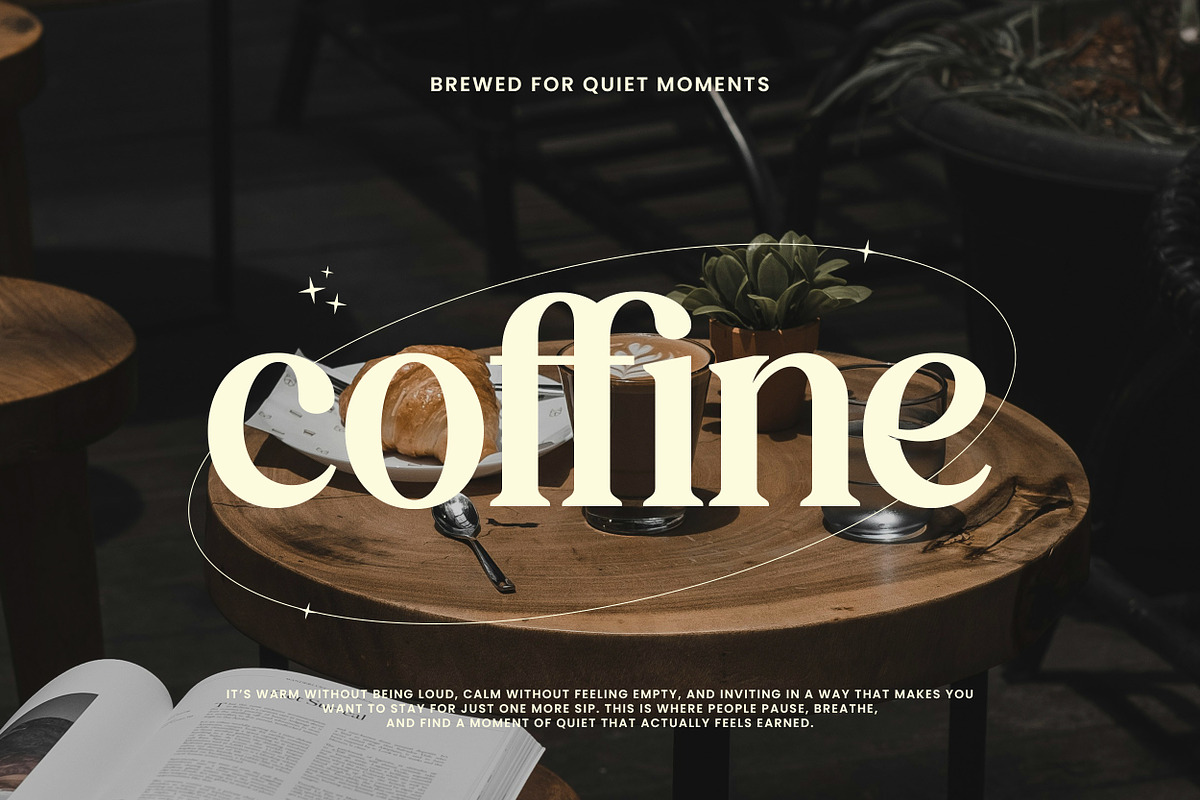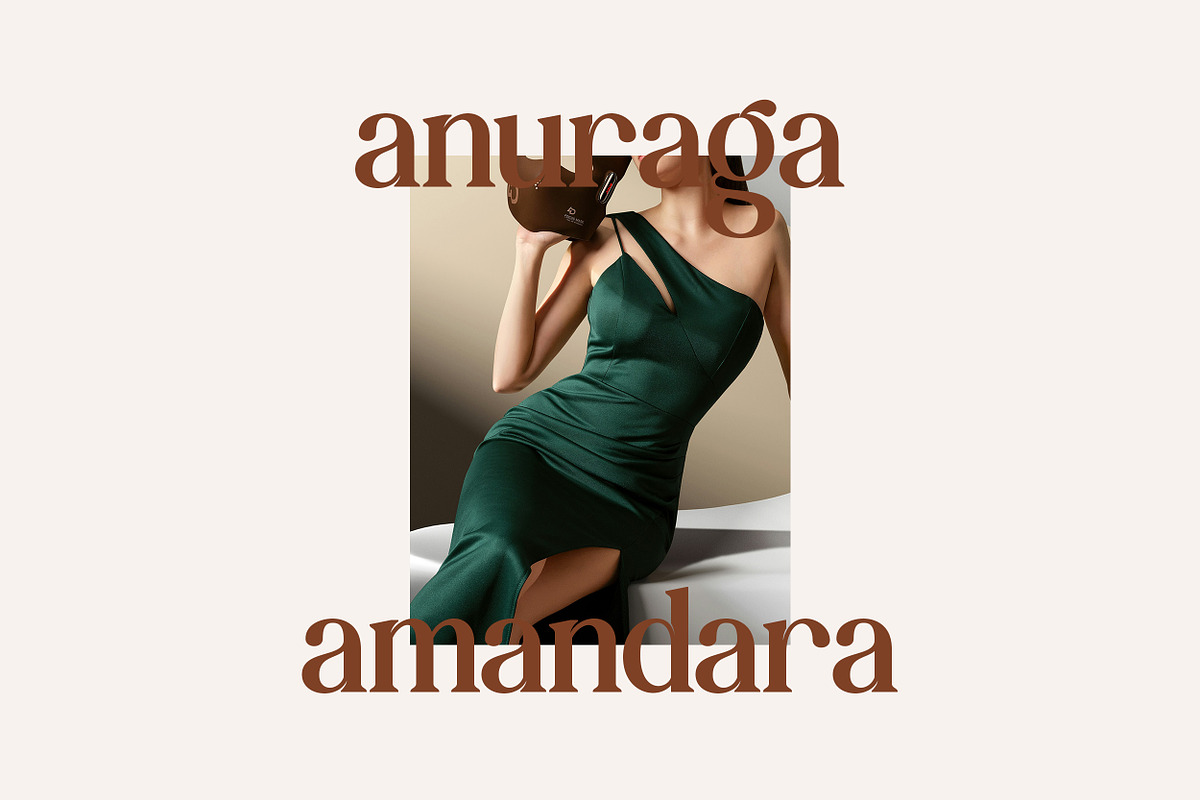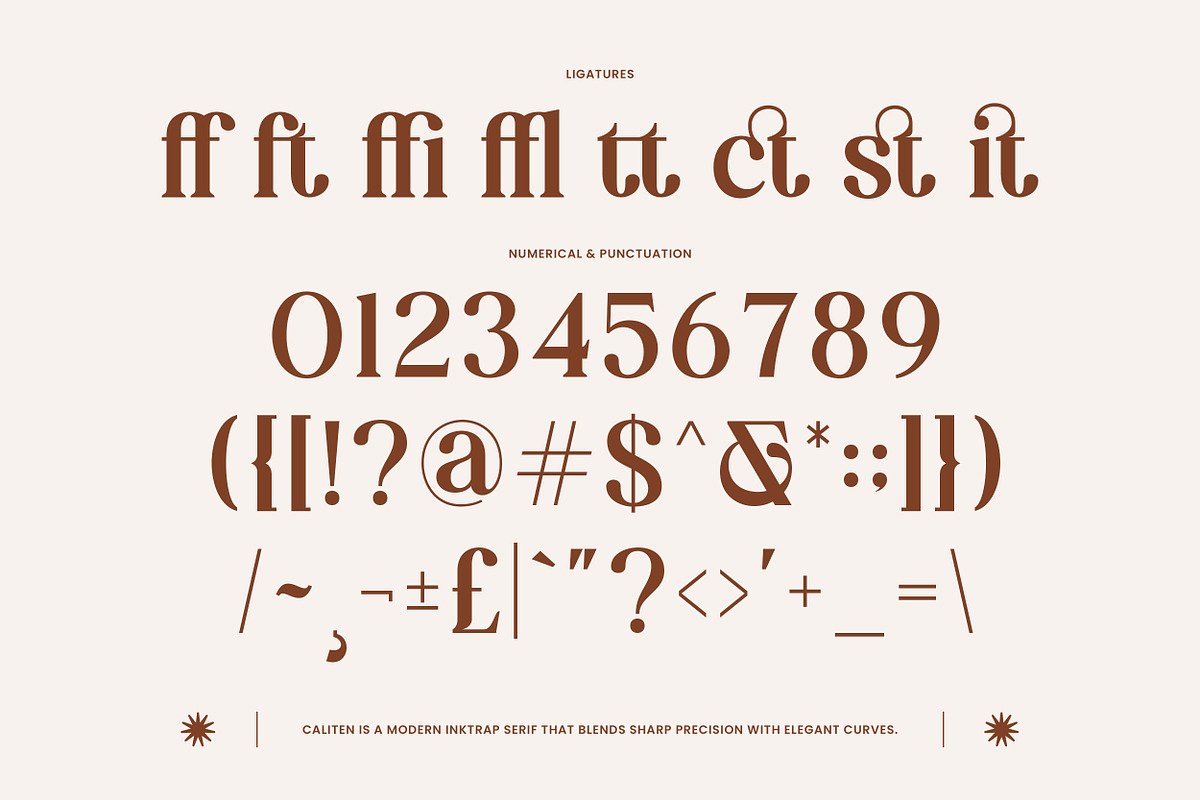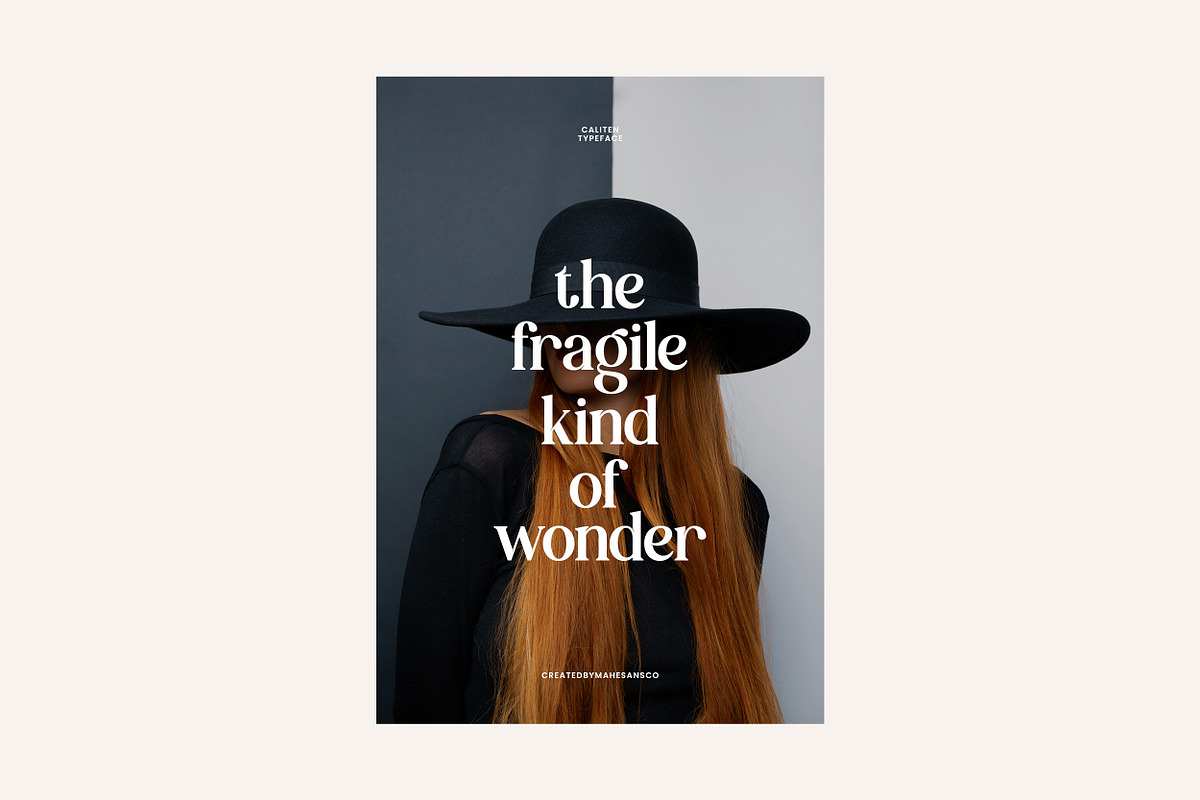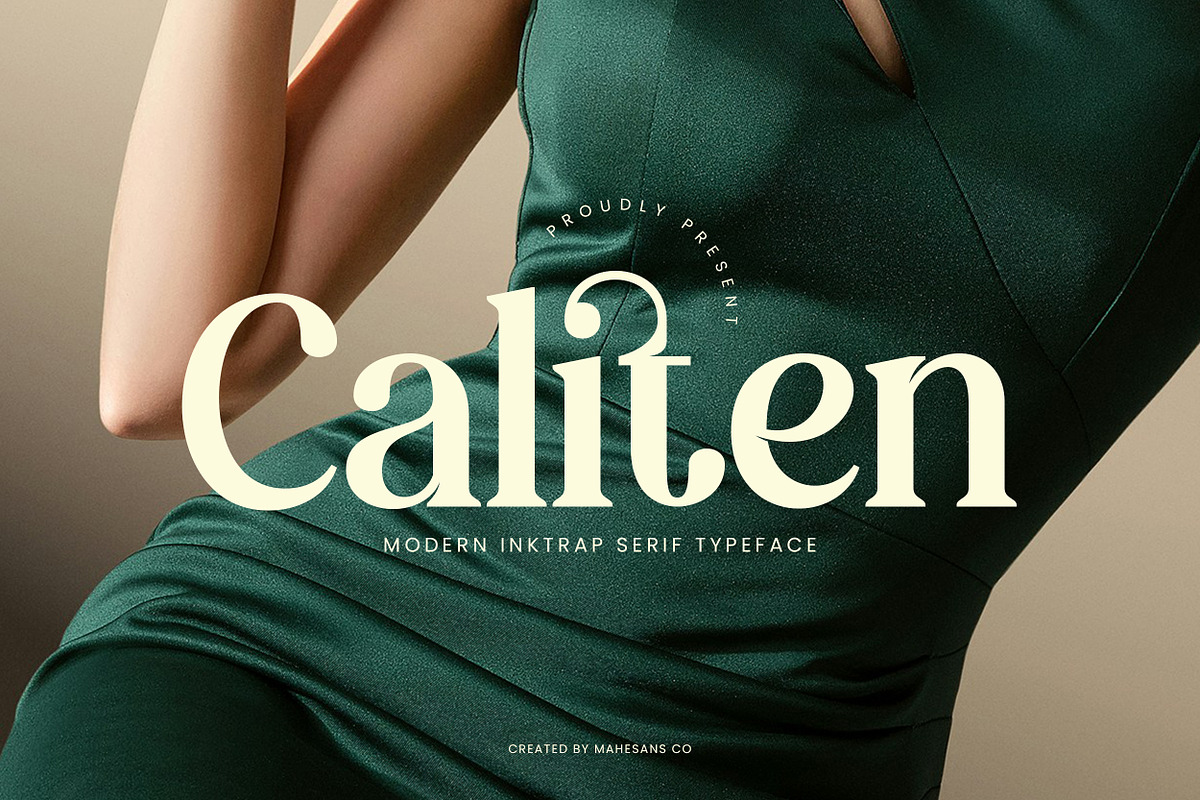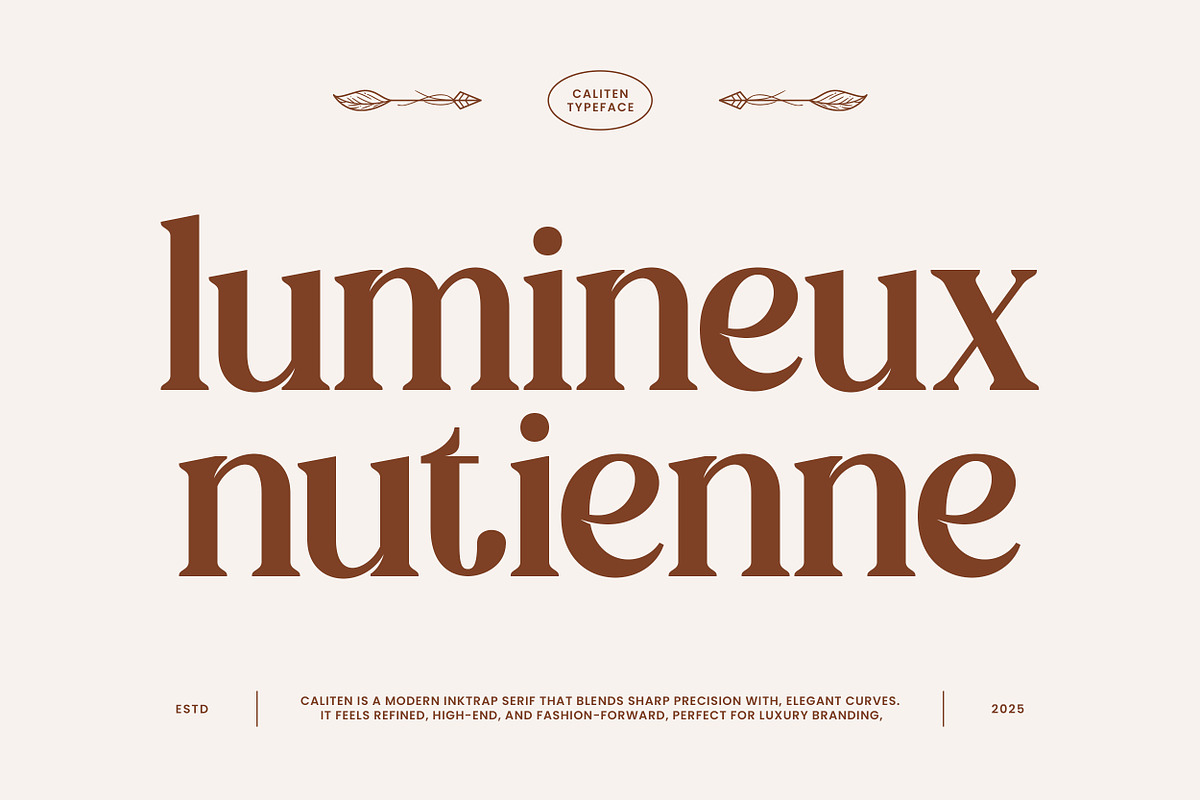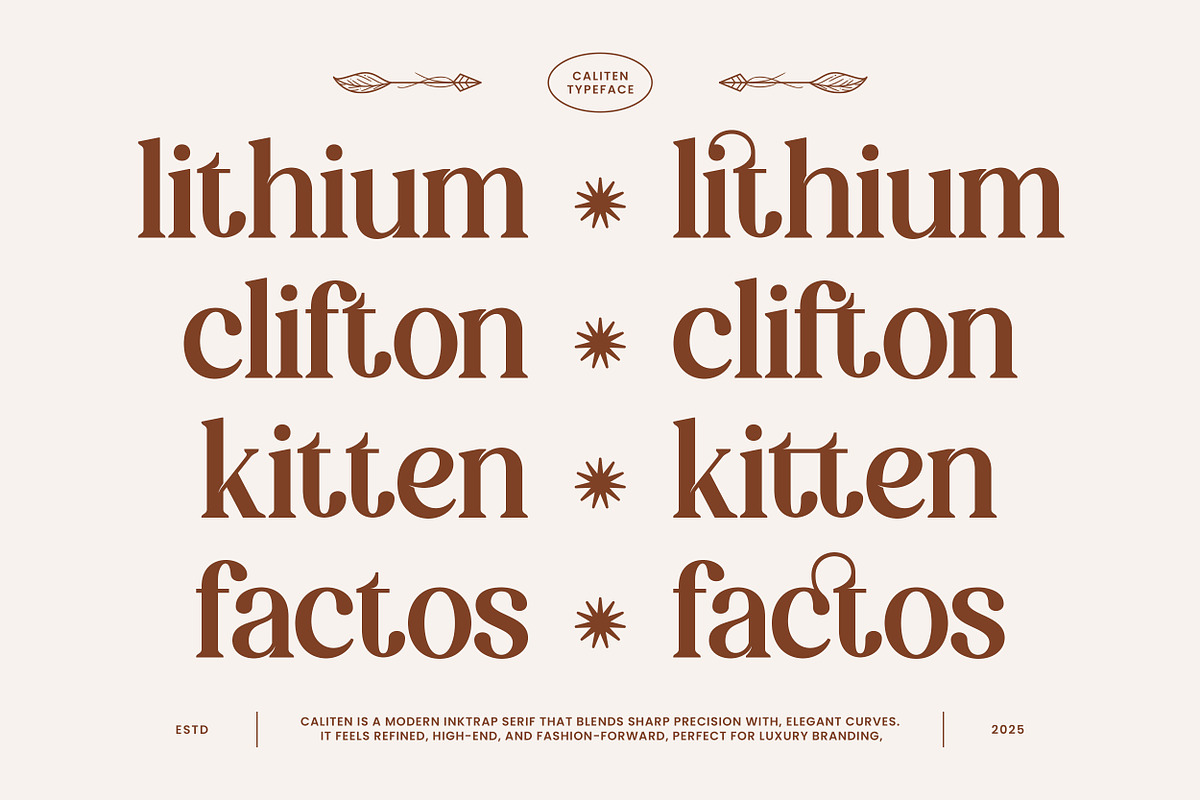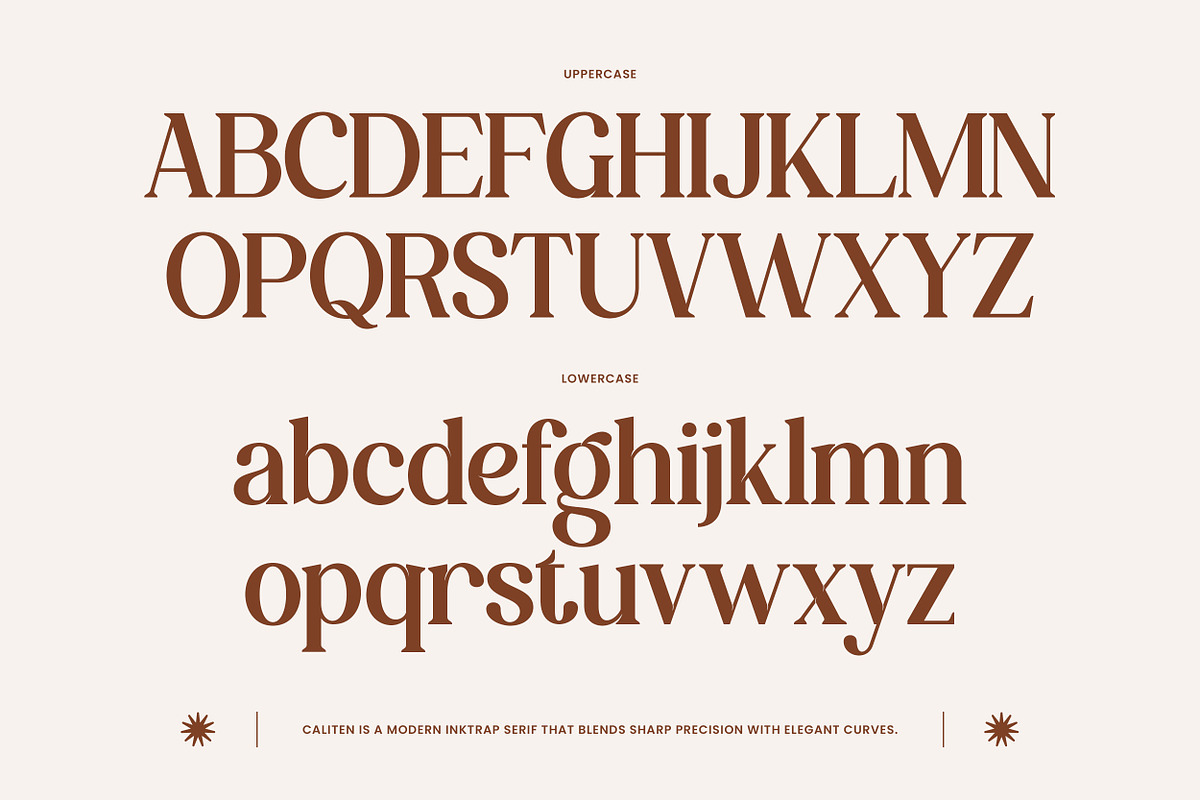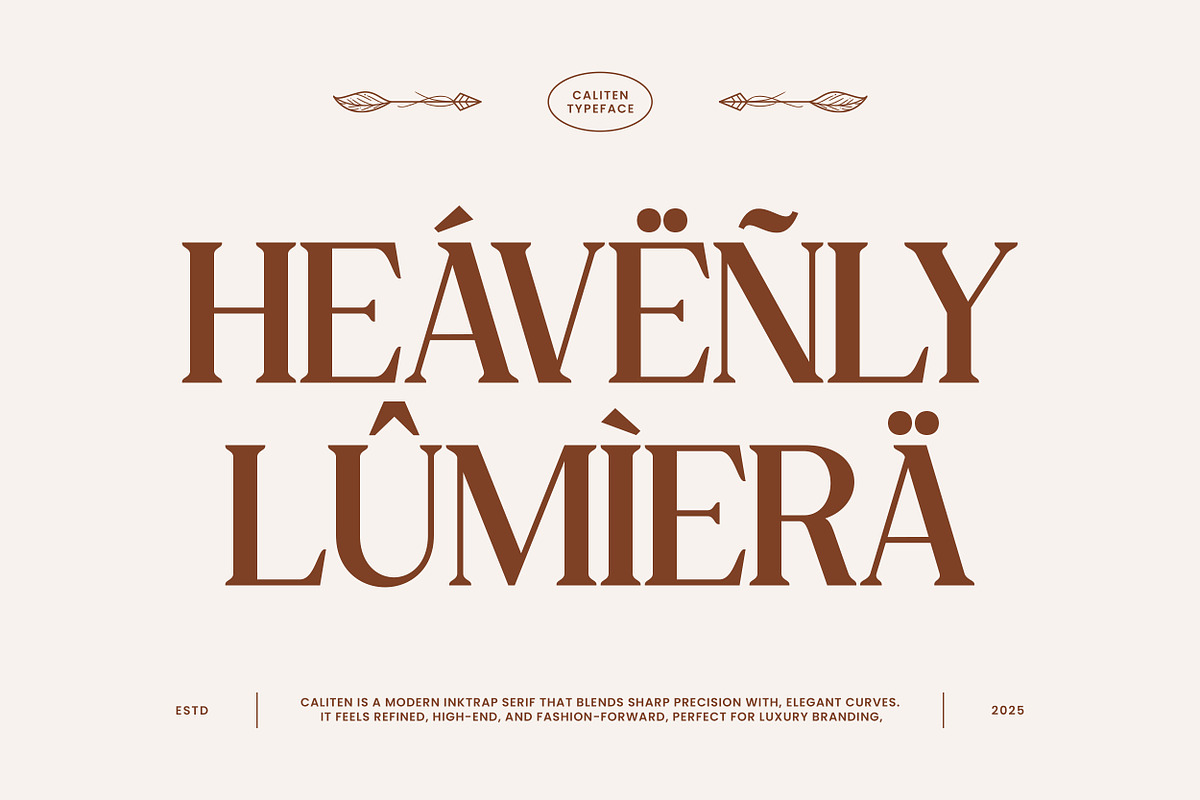
Caliten – Modern Inktrap Serif
Caliten is a modern inktrap serif that blends sharp precision with smooth, elegant curves—creating a typeface that feels refined, confident, and undeniably high-end. Every character carries a stylish balance of structure and flair, making it perfect for brands that want to look premium without trying too hard.
Designed for luxury branding, fashion campaigns, editorial layouts, beauty packaging, and striking logo work, Caliten delivers a polished visual presence with a contemporary edge. It includes a full set of alternates, ligatures, numerals, and punctuation, giving you complete control for both expressive headlines and clean, professional layouts.
- Multilanguage